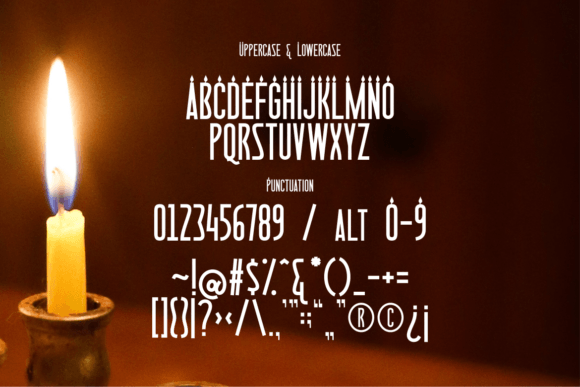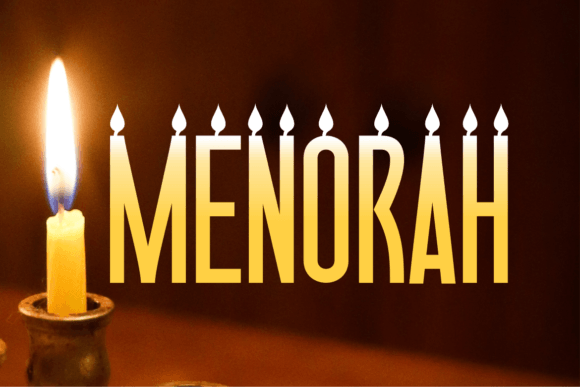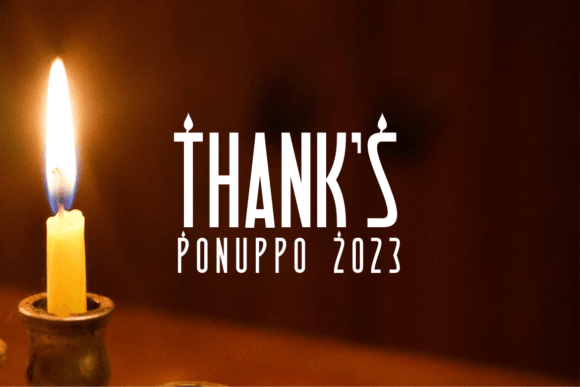
Introduction to Porisathe Font
Porisathe is a uniquely crafted Hanukkah font that adds a special touch to your holiday creations.
With its festive and distinctive style, this font brings warmth and joy to your Hanukkah-themed projects Whether youโre designing cards, banners, or invitations, Porisathe infuses a celebratory spirit with its special charm.
Key Features of Porisathe Font